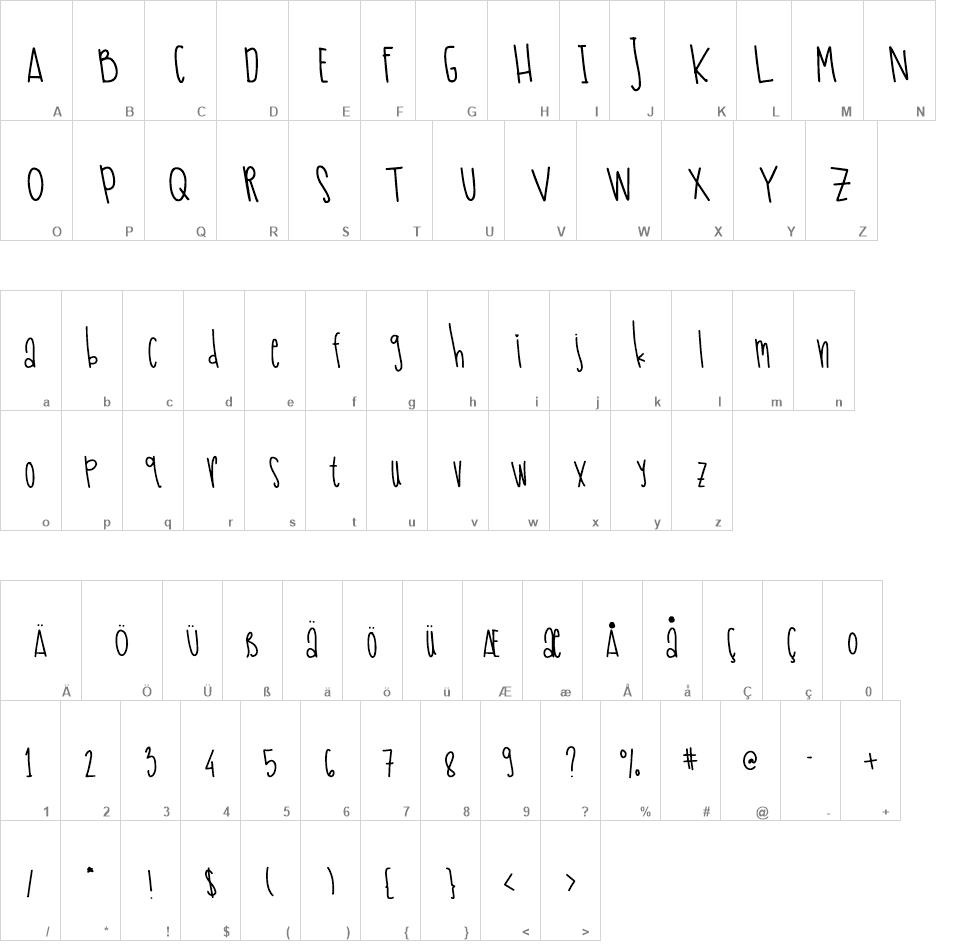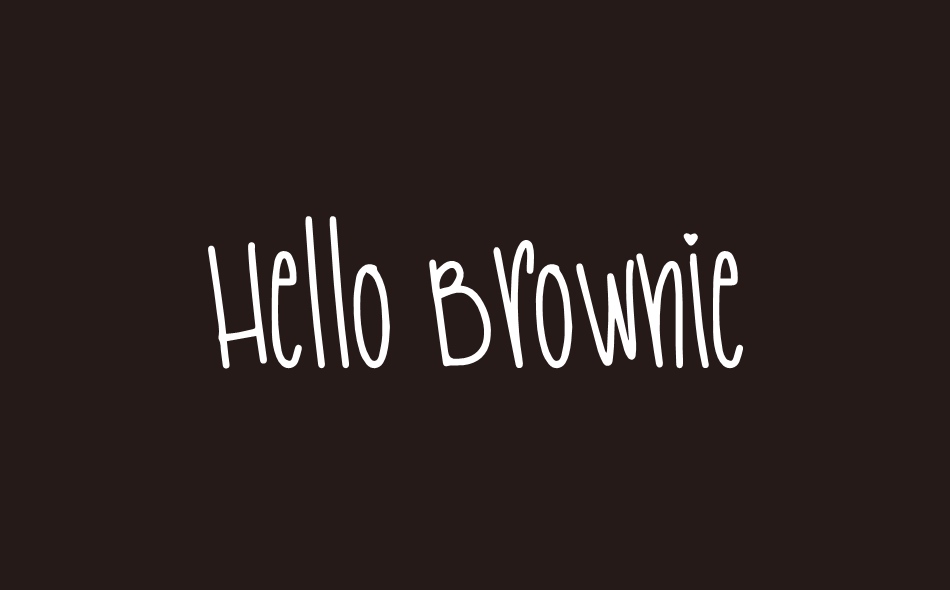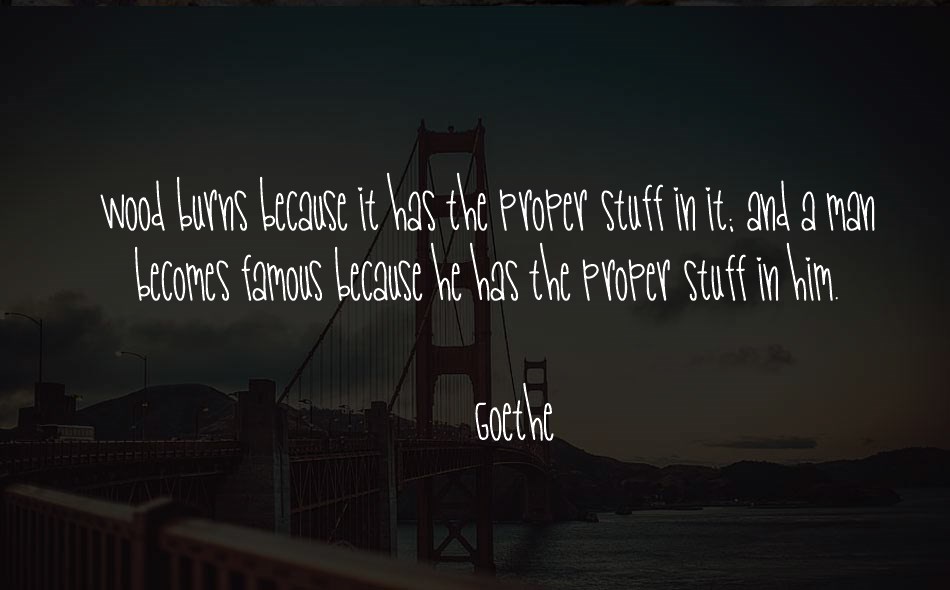
Hello Brownie font
Hello Brownie is playful font family which puts a smile on your projects and will inspire you to create something fun and memorable. It is perfect for headings, flyer, greeting cards, product packaging, book cover, printed quotes, logotype, apparel design, album covers, etc.